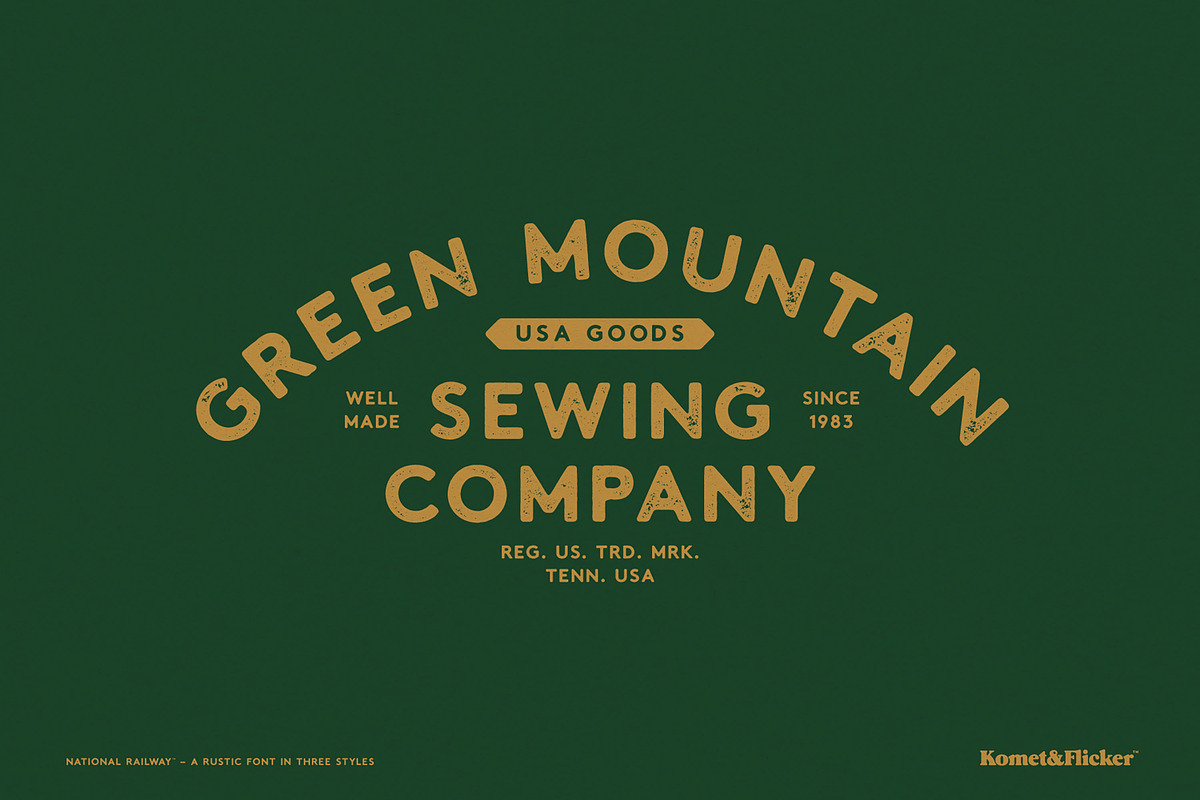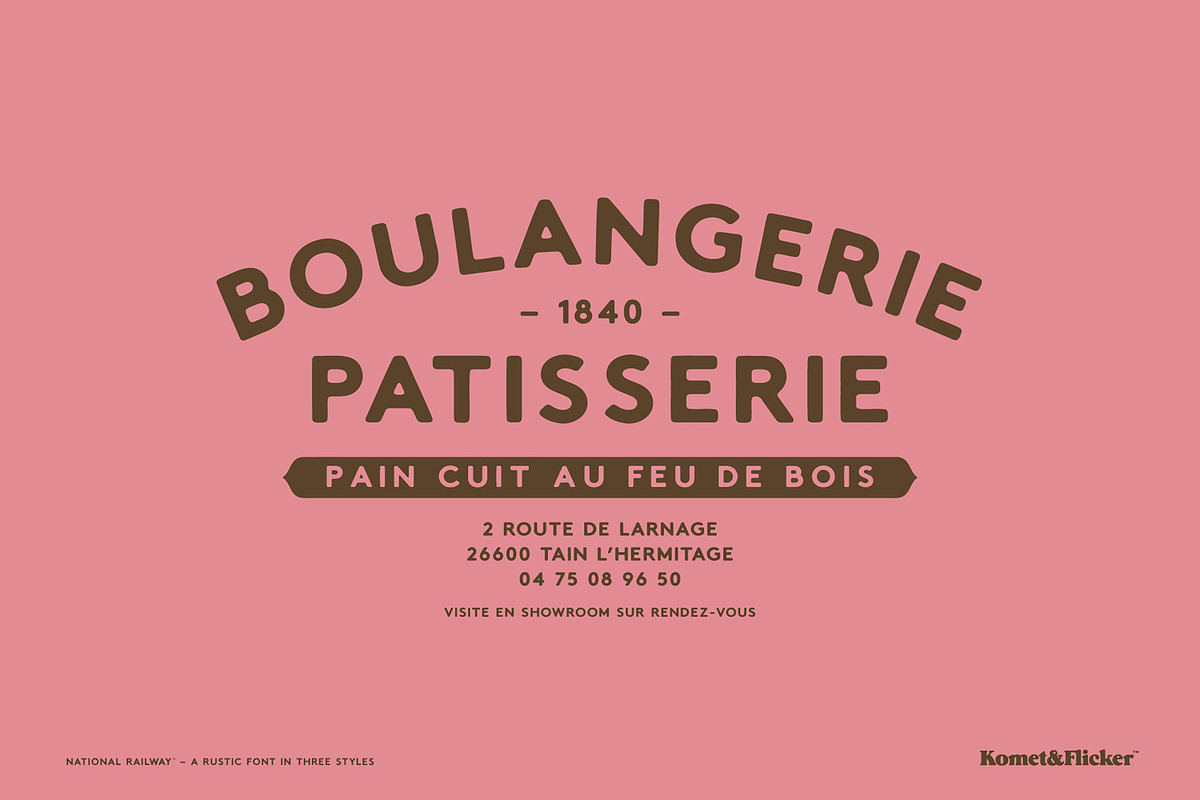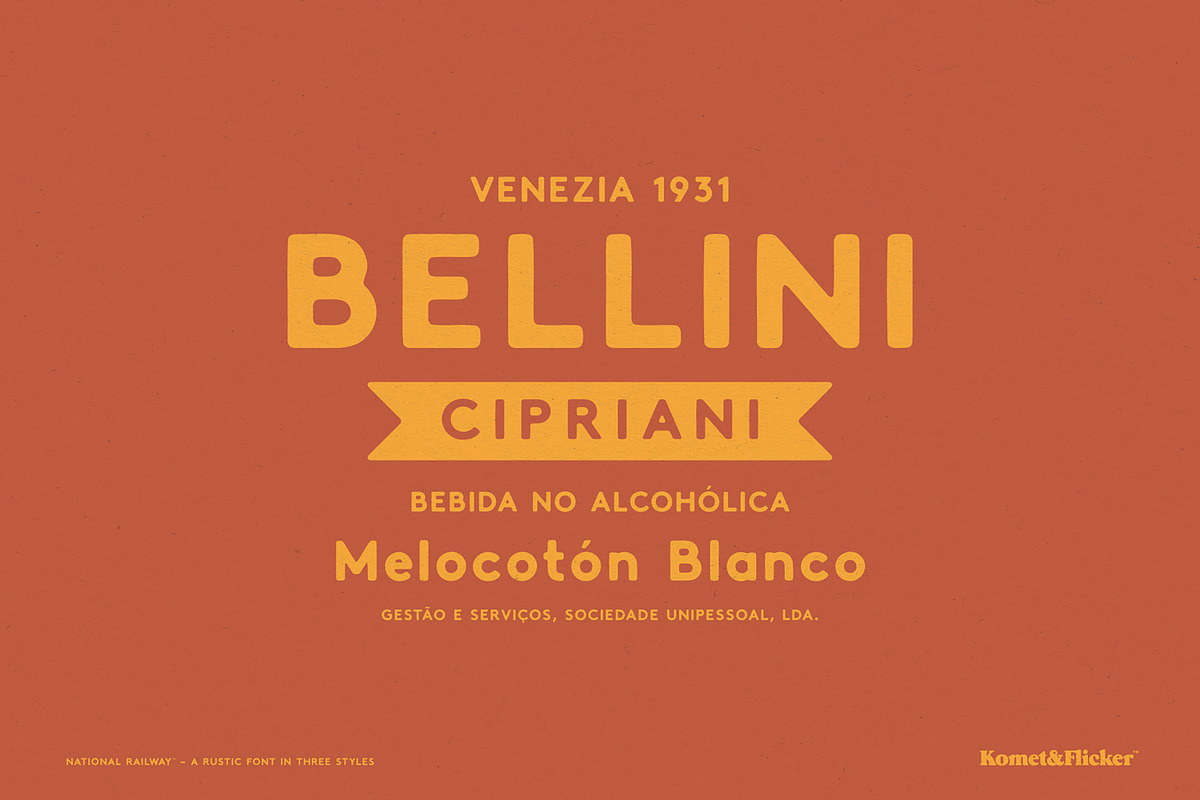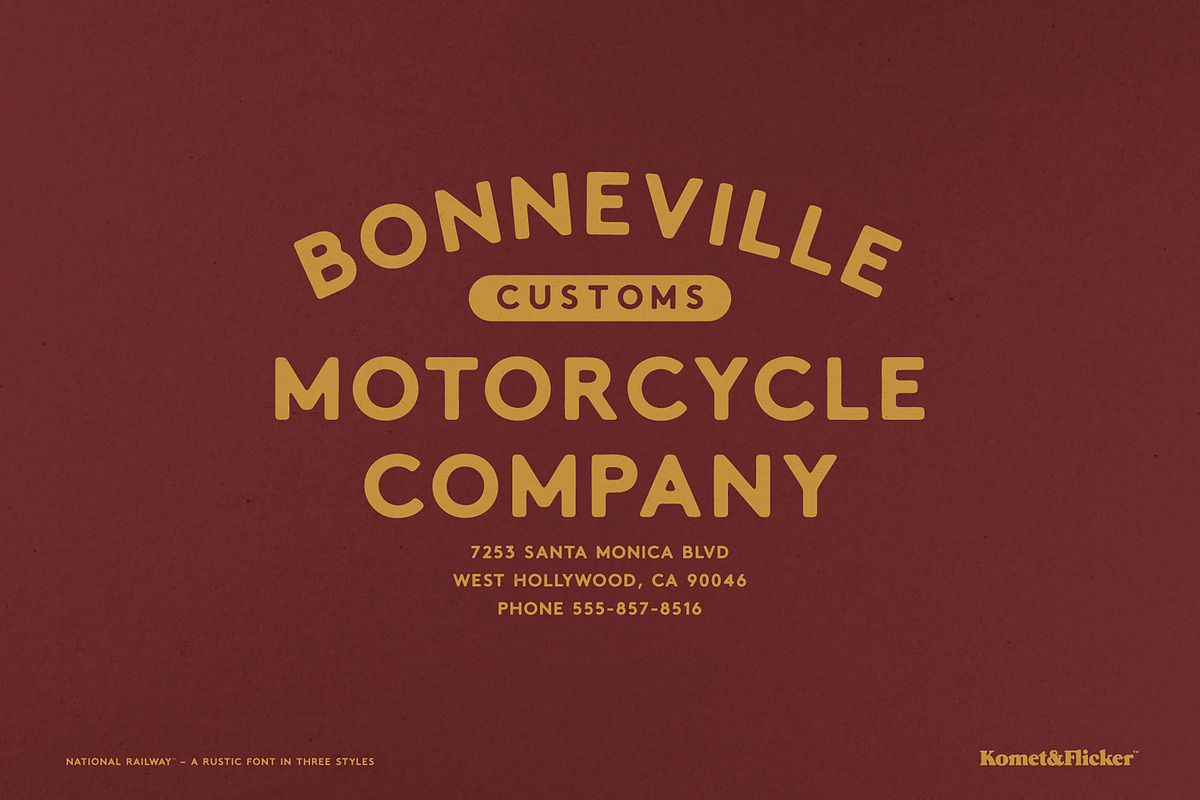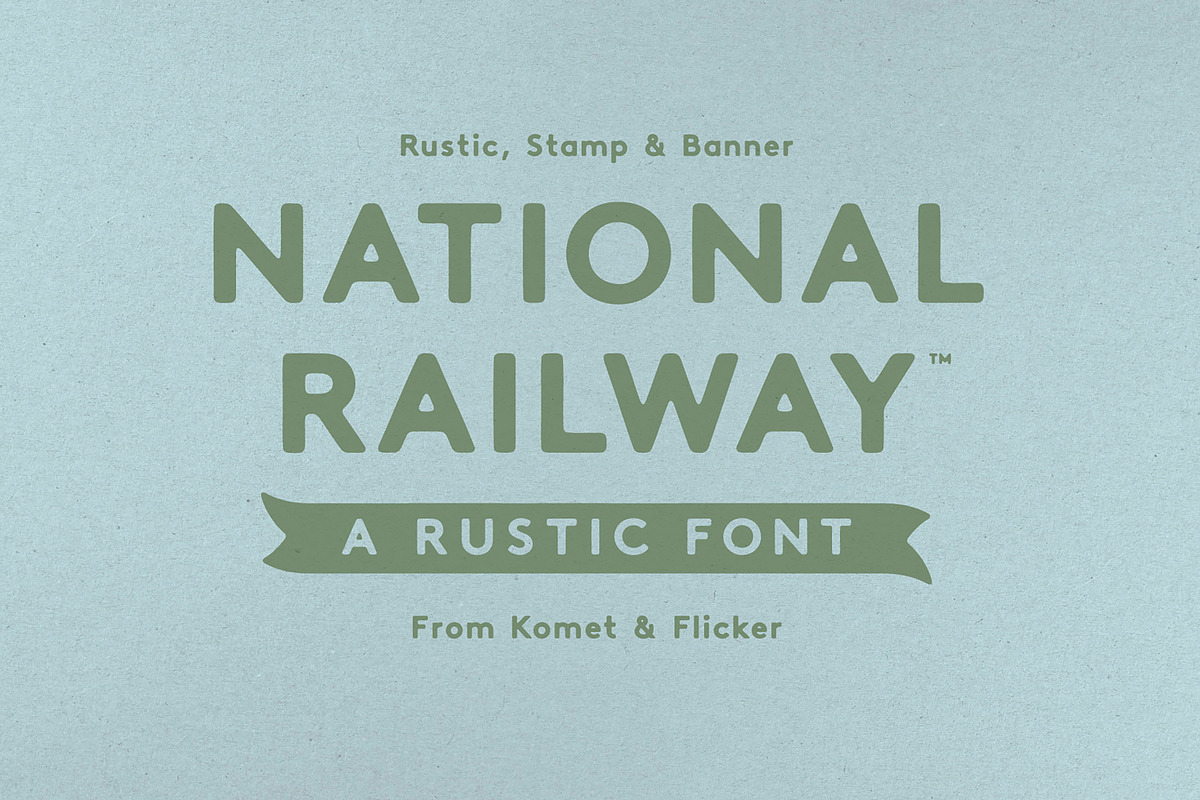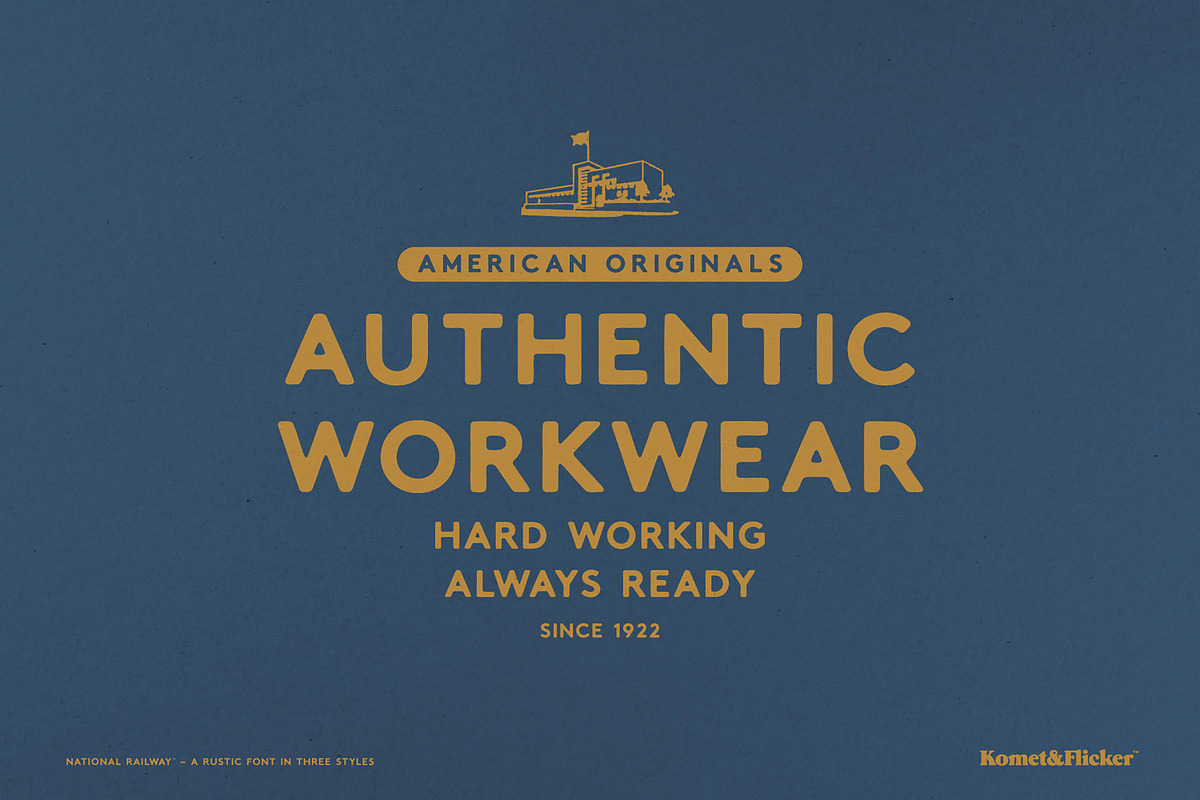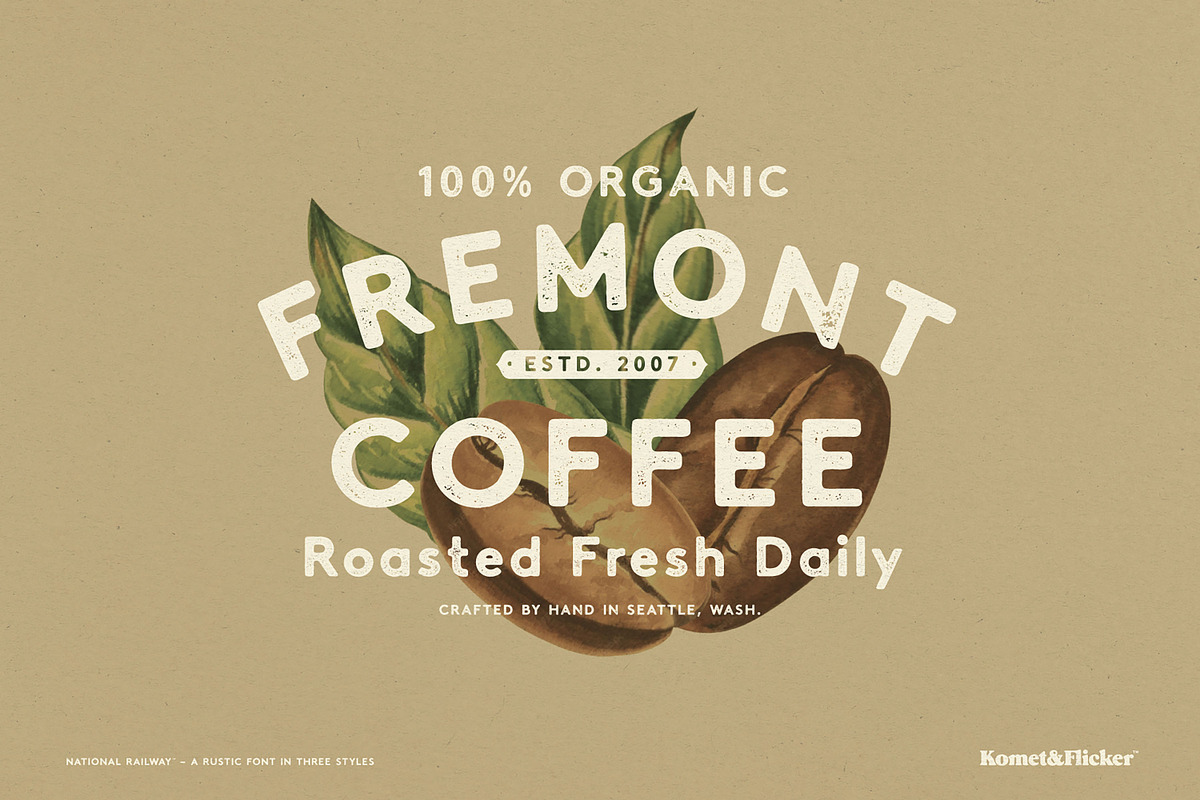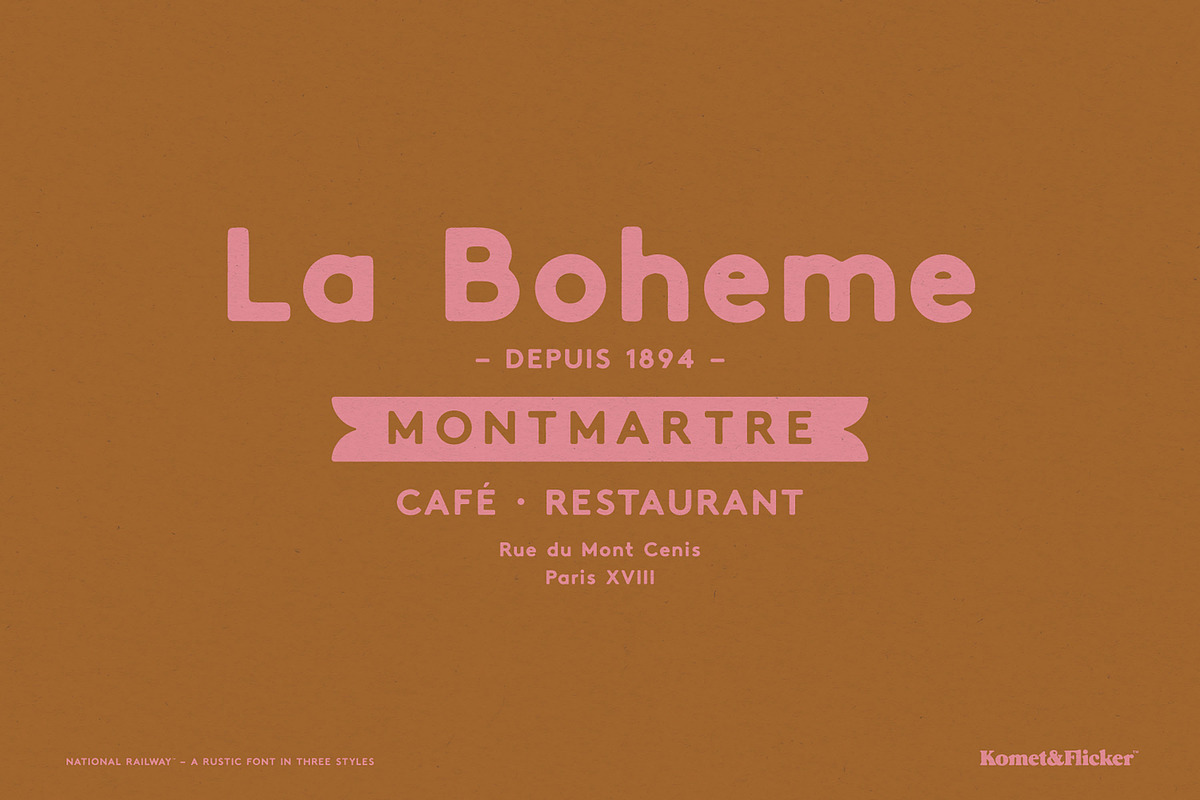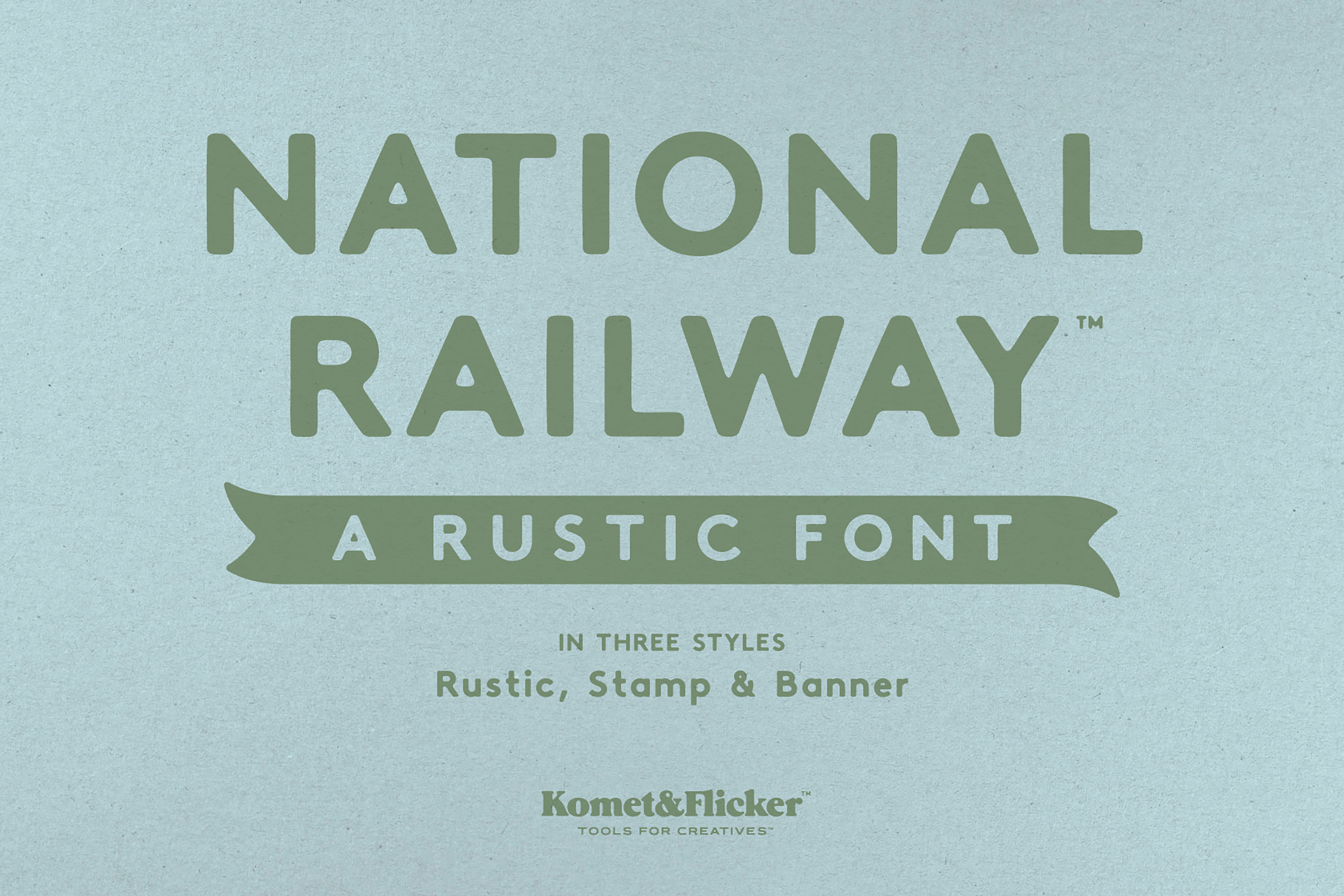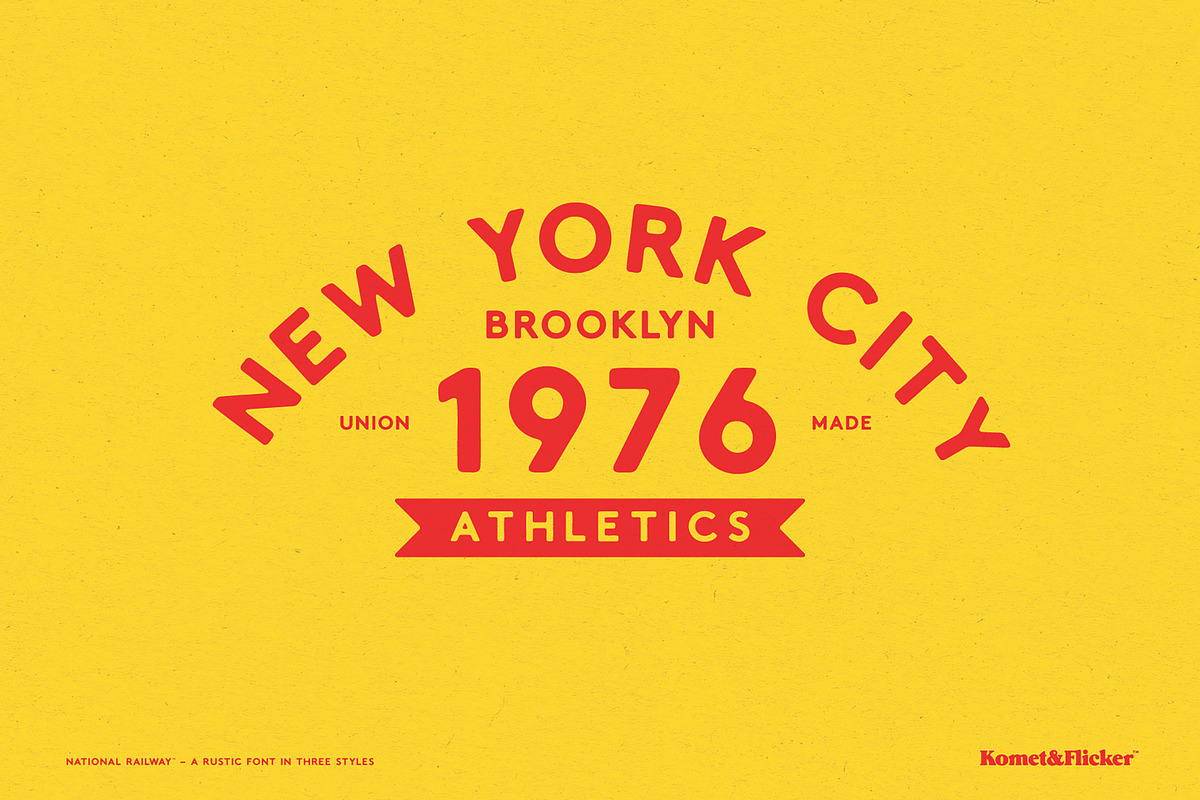
National Railway - A Rustic Font
National Railway is a rustic font with a well-worn feel that lends a sense of vintage authenticity to any design, making it perfect for those seeking a handcrafted, time-tested aesthetic. Whether you're branding a retro coffee shop, designing labels for small-batch spirits, crafting vintage-inspired apparel, or creating outdoor-themed packaging, National Railway delivers with rugged personality and character in every letter.
Three Awesome Vintage Styles
Rustic – Softened edges and rounded corners for a warm, worn-in look that evokes weathered wood of old trail signs.
Stamp – Rough and gritty textures that bring a rugged, hand-pressed, timeworn feel to your designs.
Banner – Create your own text banners with 19 different end shapes.
And to enhance its versatility, this font includes a set of 20 custom connecting words (such as: and, the, from, to) available in both caps and lowercase styles (caps only in the banner style). These seamlessly integrate with your layout, making it easy to create natural, flowing typographic compositions.
THIS FONT COMES IN THREE STYLES
National Railway Rustic
National Railway Stamp
National Railway Banner
Set of 20 custom connecting word glyphs in two styles (caps only in the banner style)